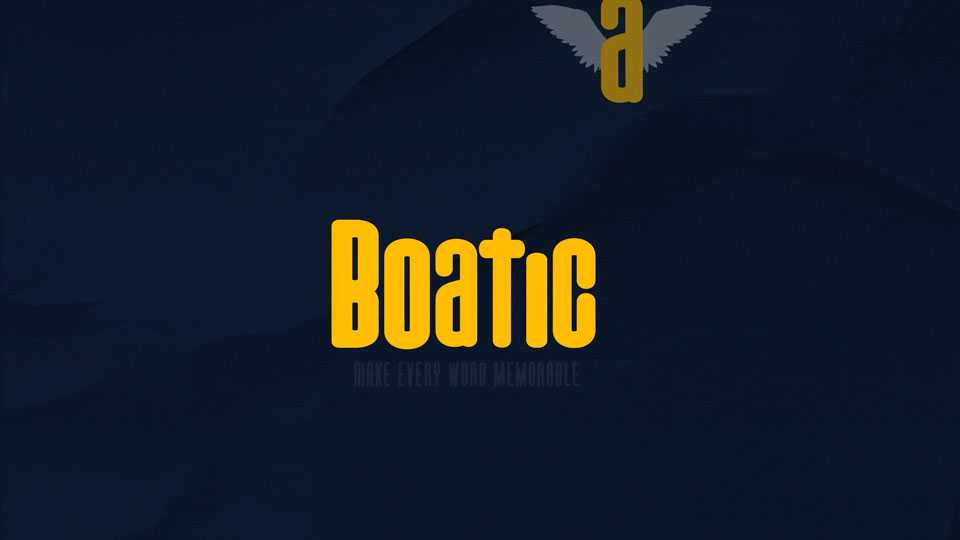
Download Boatica font, a bold and personality-filled display typeface, perfect for those looking to make an impact at first glance with soft curves, rounded corners, and a striking presence,.
Designer: Gustavo Yang